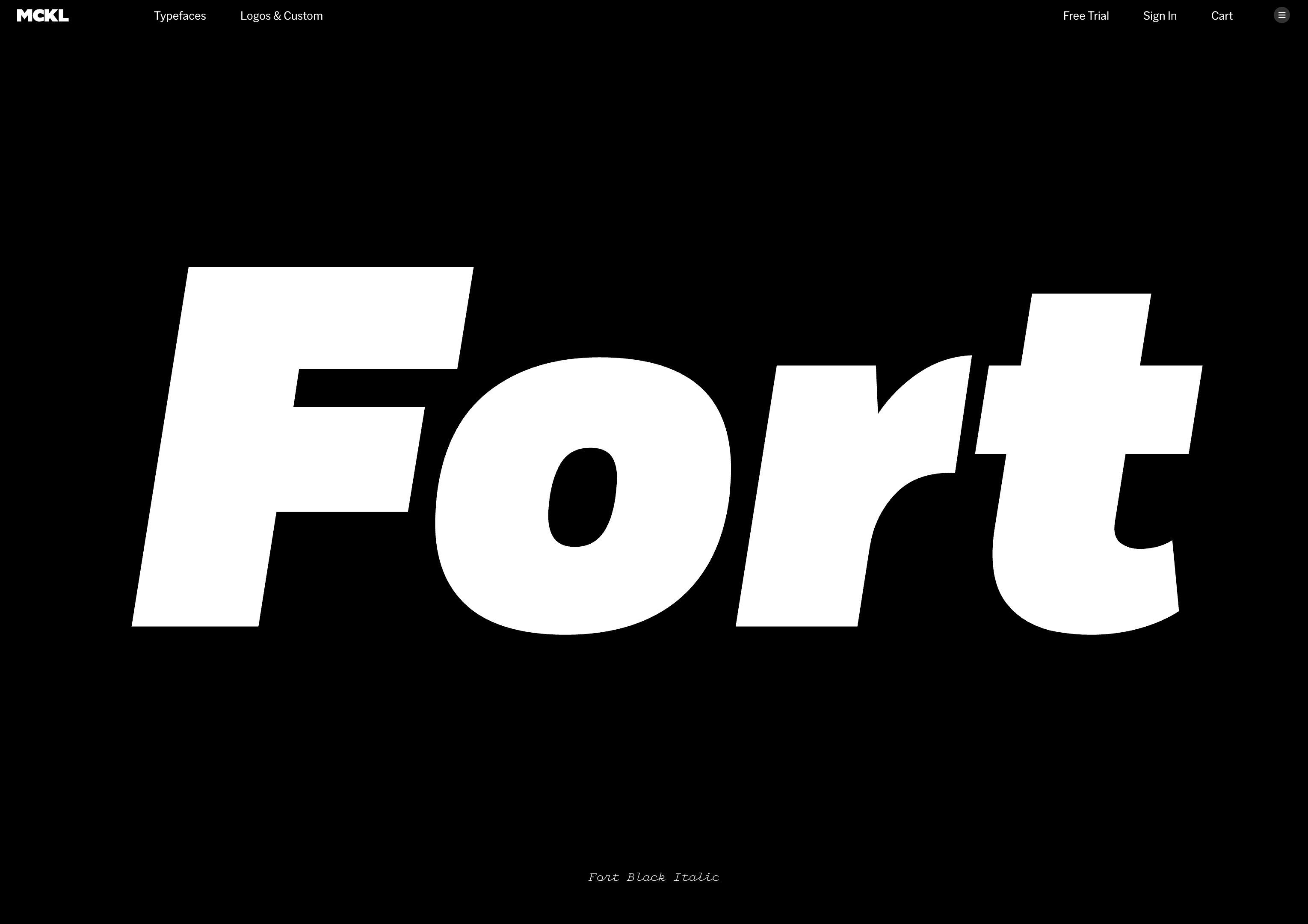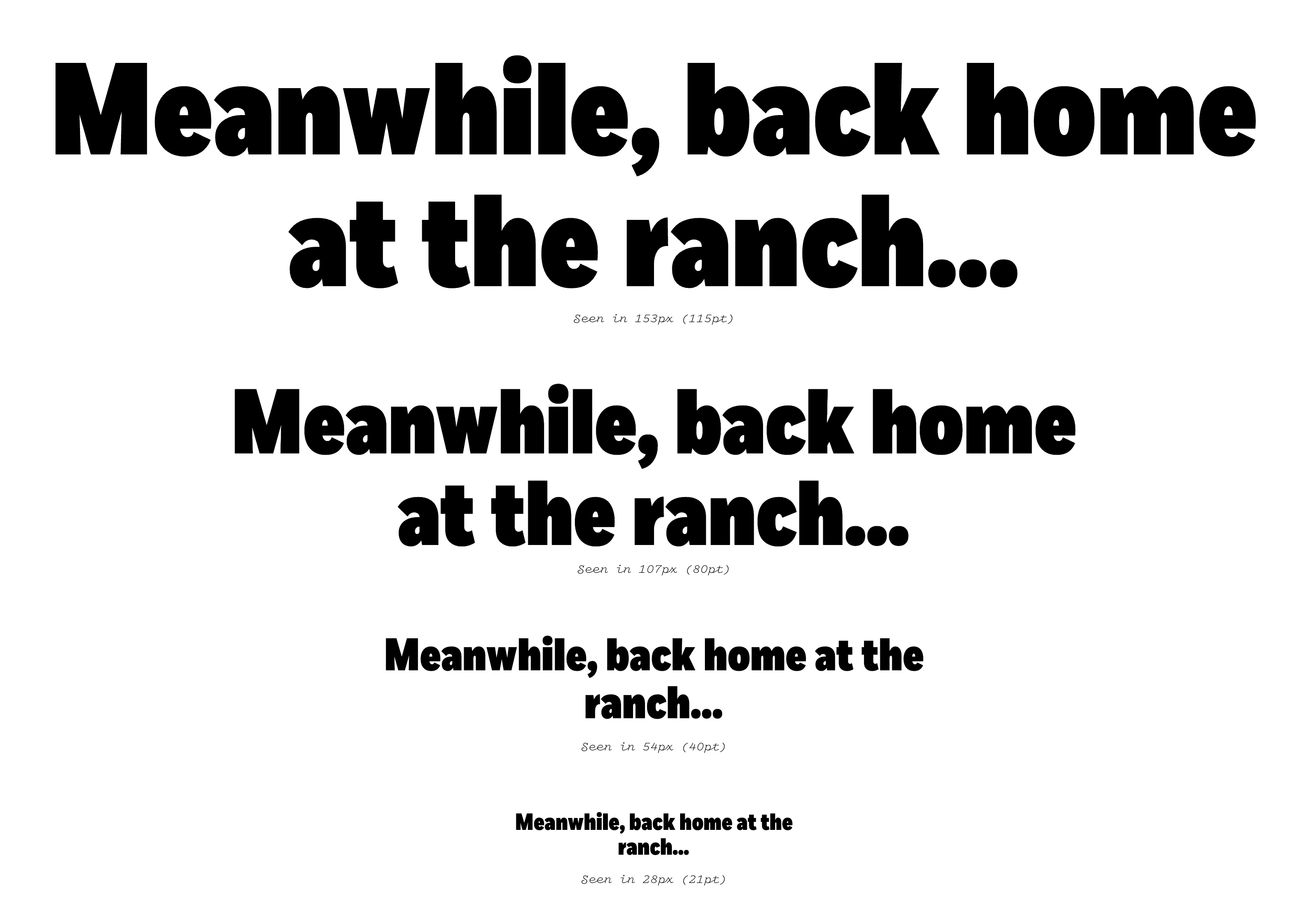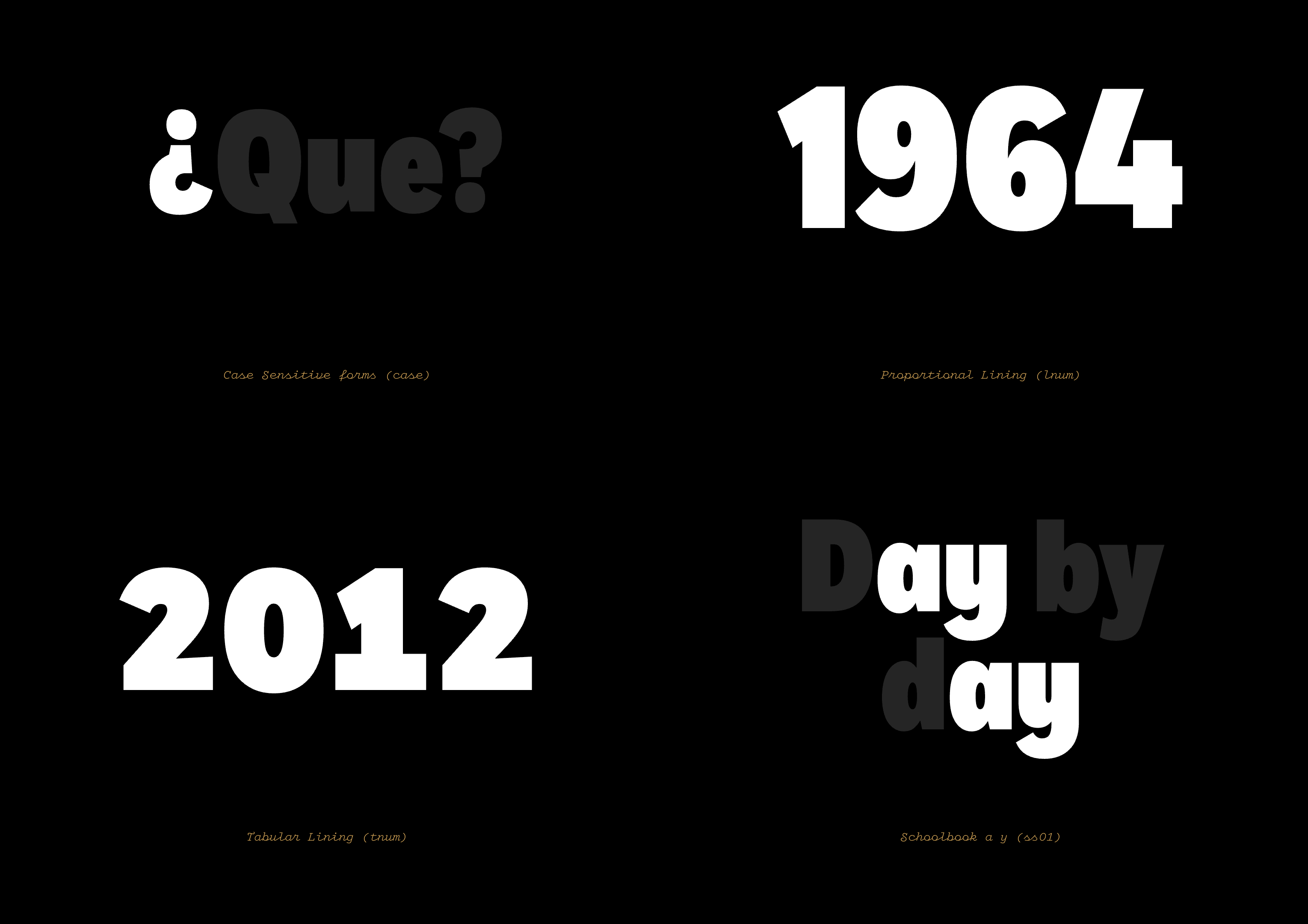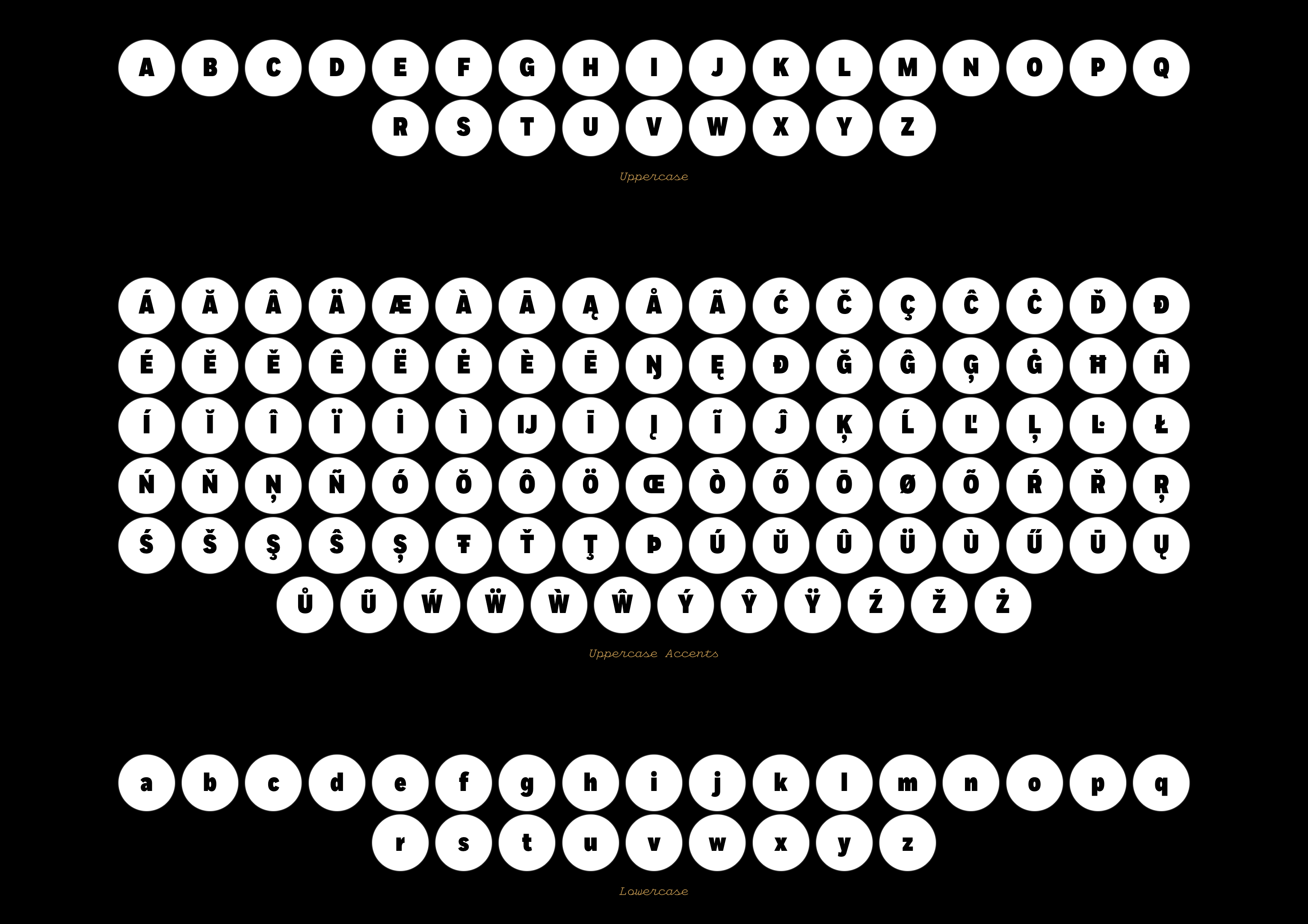
Fort
- 48 styles 3 widths, 8 weights each Roman and Italic
- Designed by Jeremy Mickel
- Published in 2012, updated 2014
Fort is a contemporary grotesk born from years of graphic design experience and the ongoing demand for a versatile, high-performance sans serif. Its defining traits include squared shoulders, distinctive counterforms in rounded characters, carefully redrawn slanted italics, and a uniform texture across the weight range. While neutral and dependable enough for information design, branding, and small text, Fort’s subtle character and refined details come to life in display settings.
OpenType Features
Case Sensitive formscase
¿Que?
¡¿@-–—
Proportional Lininglnum
1964
0123456789
Tabular Liningtnum
2012
0123456789
Schoolbook a yss01
Daily
aáăâäàāąåãyýŷÿª
Alternate Gss02
GIGS
GĞĜĢĠ
Alternate K kss03
Kafka
KĶkķ